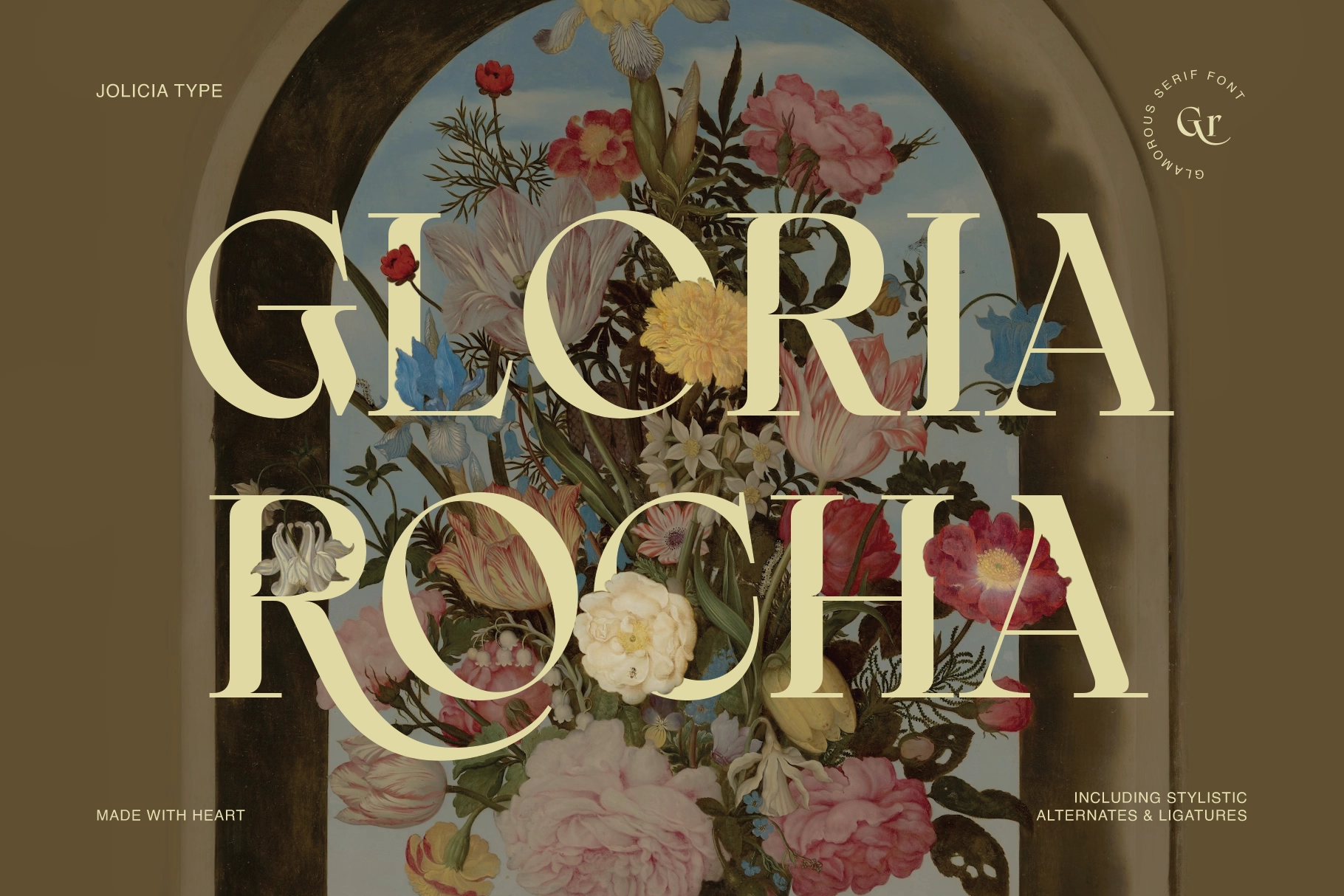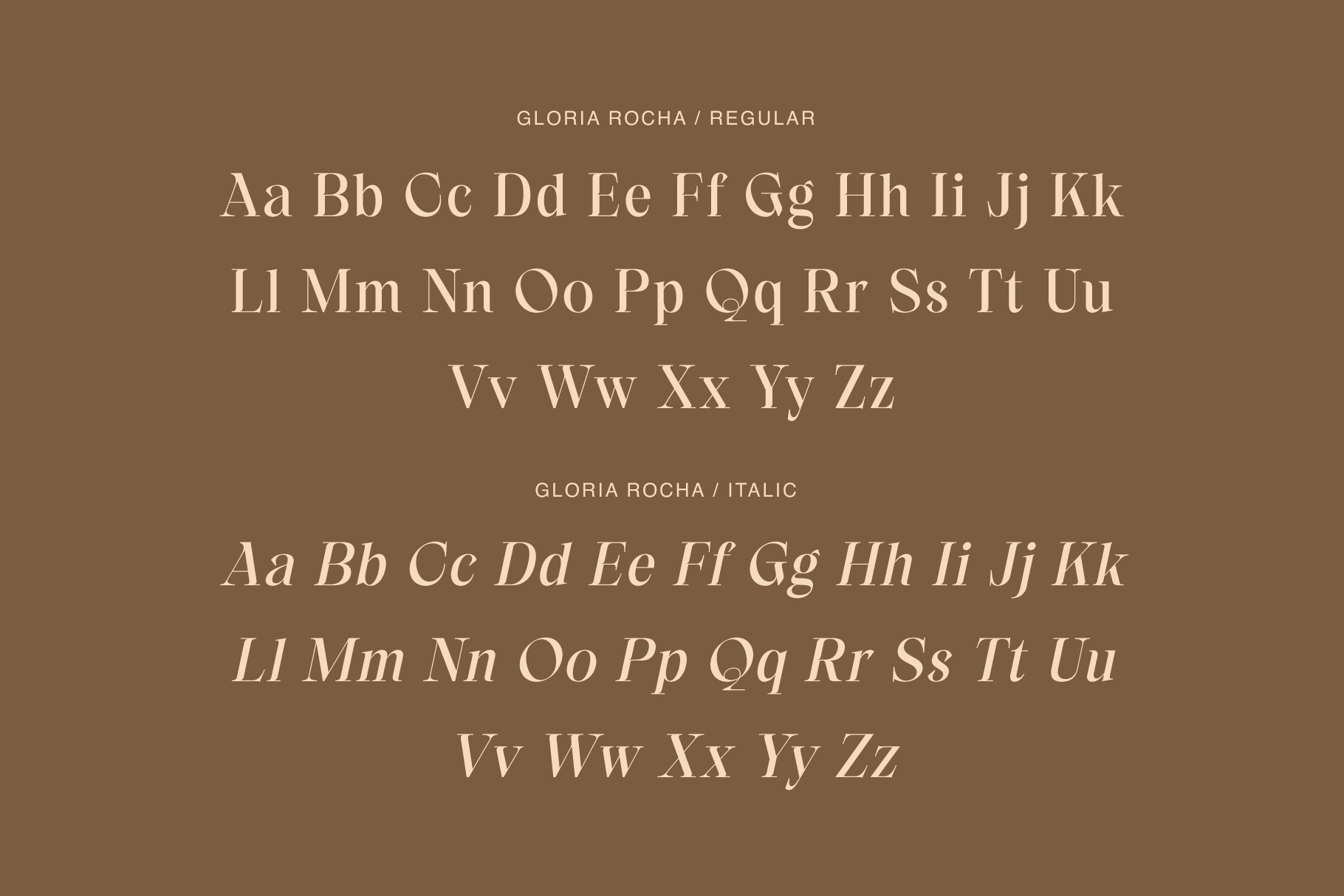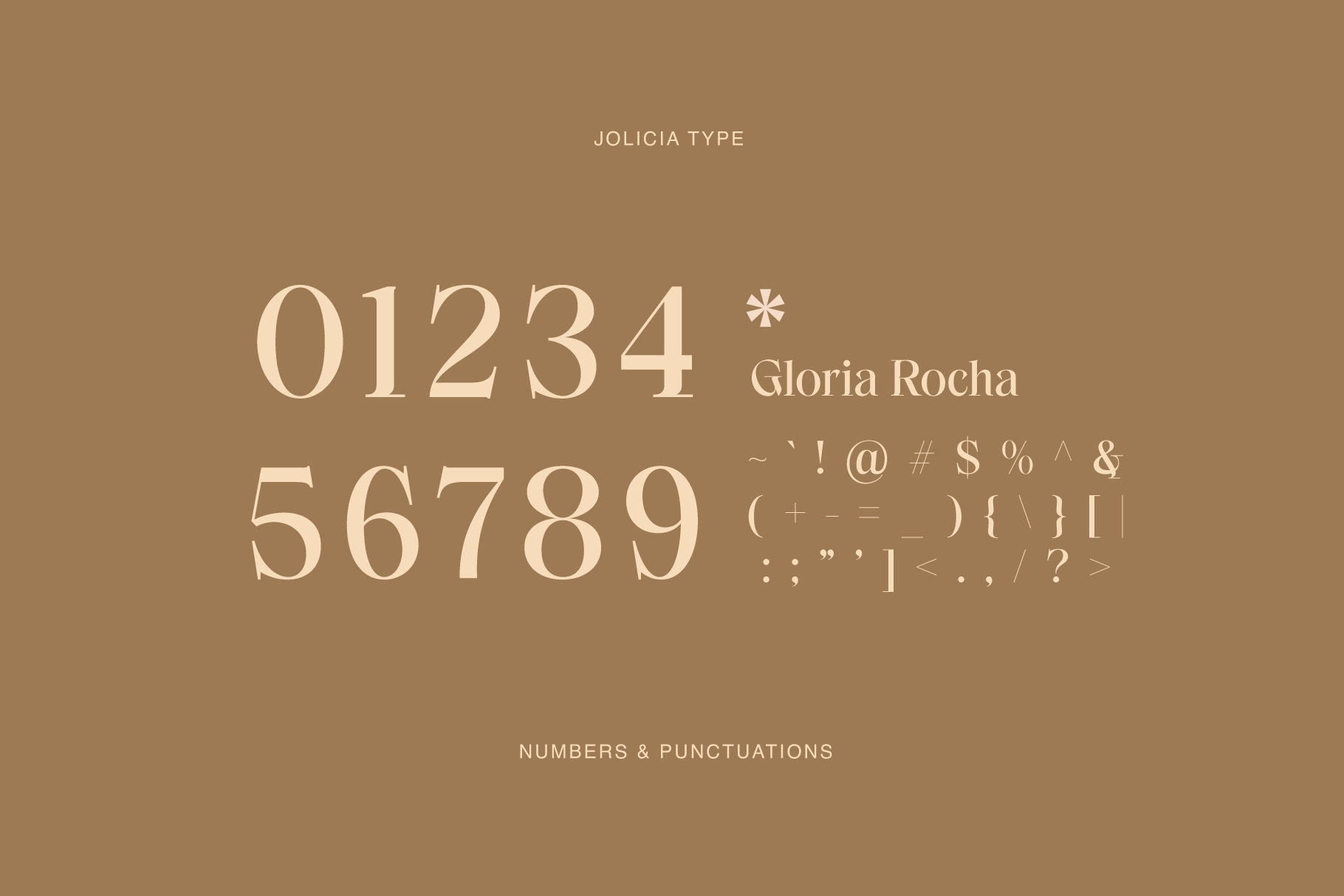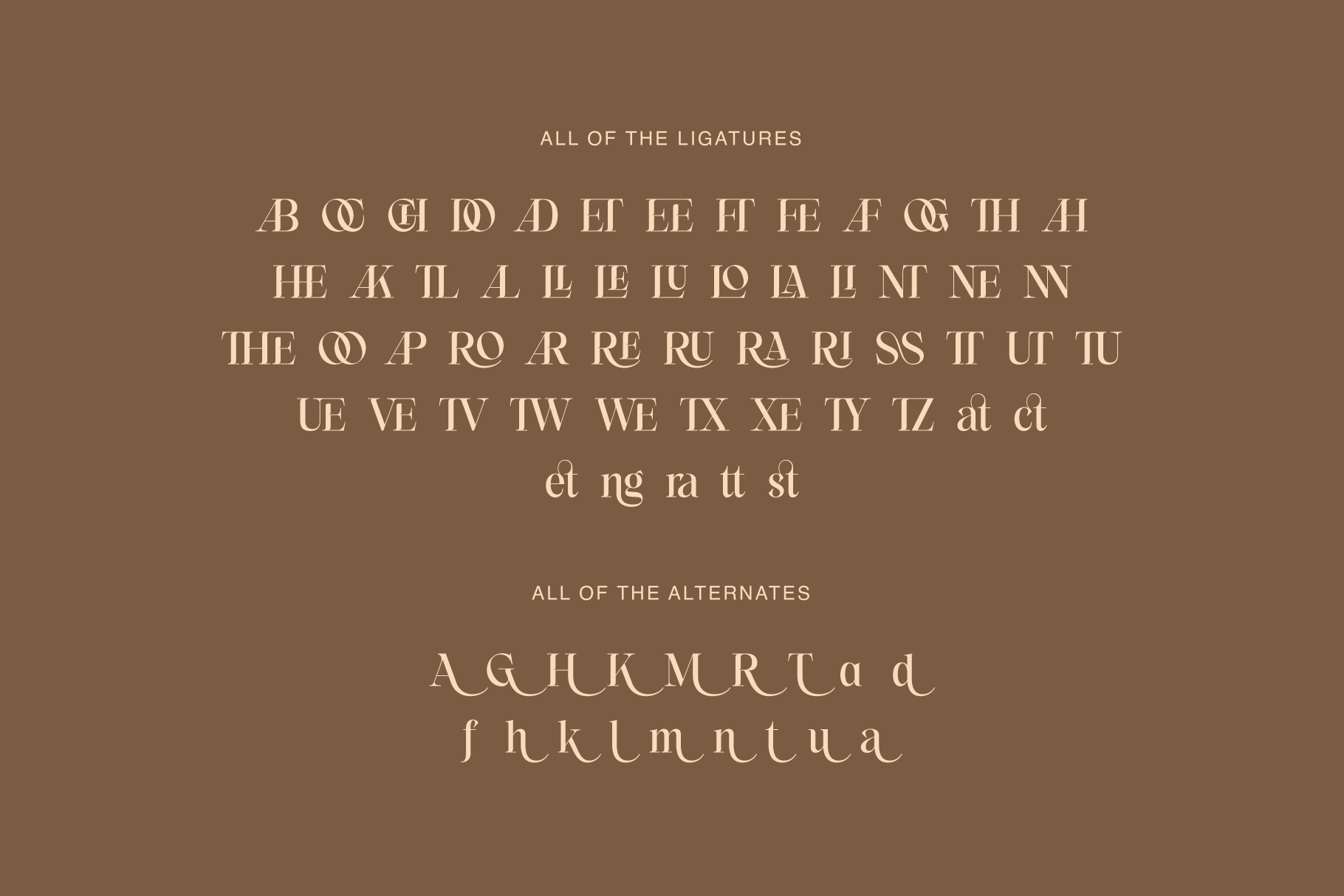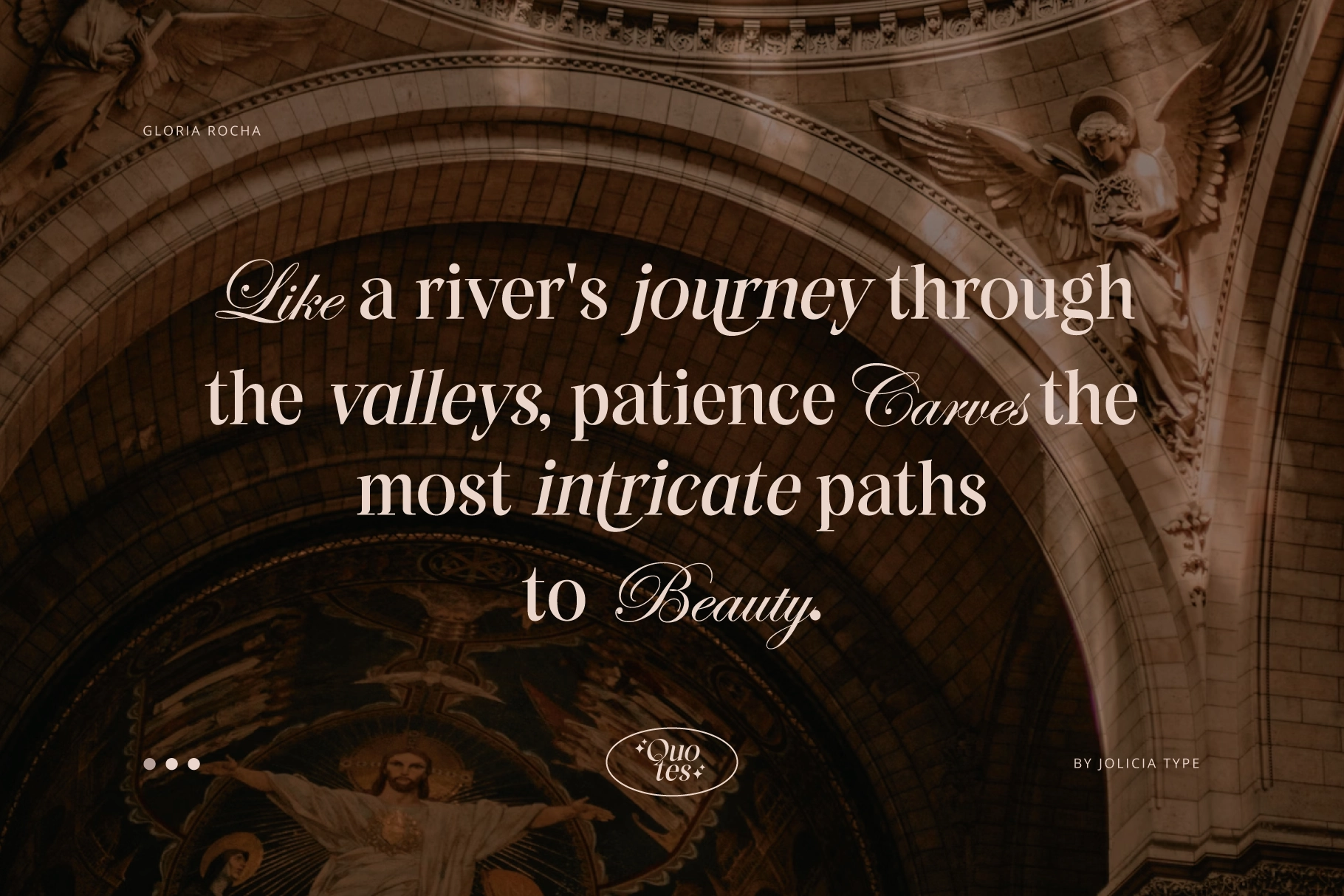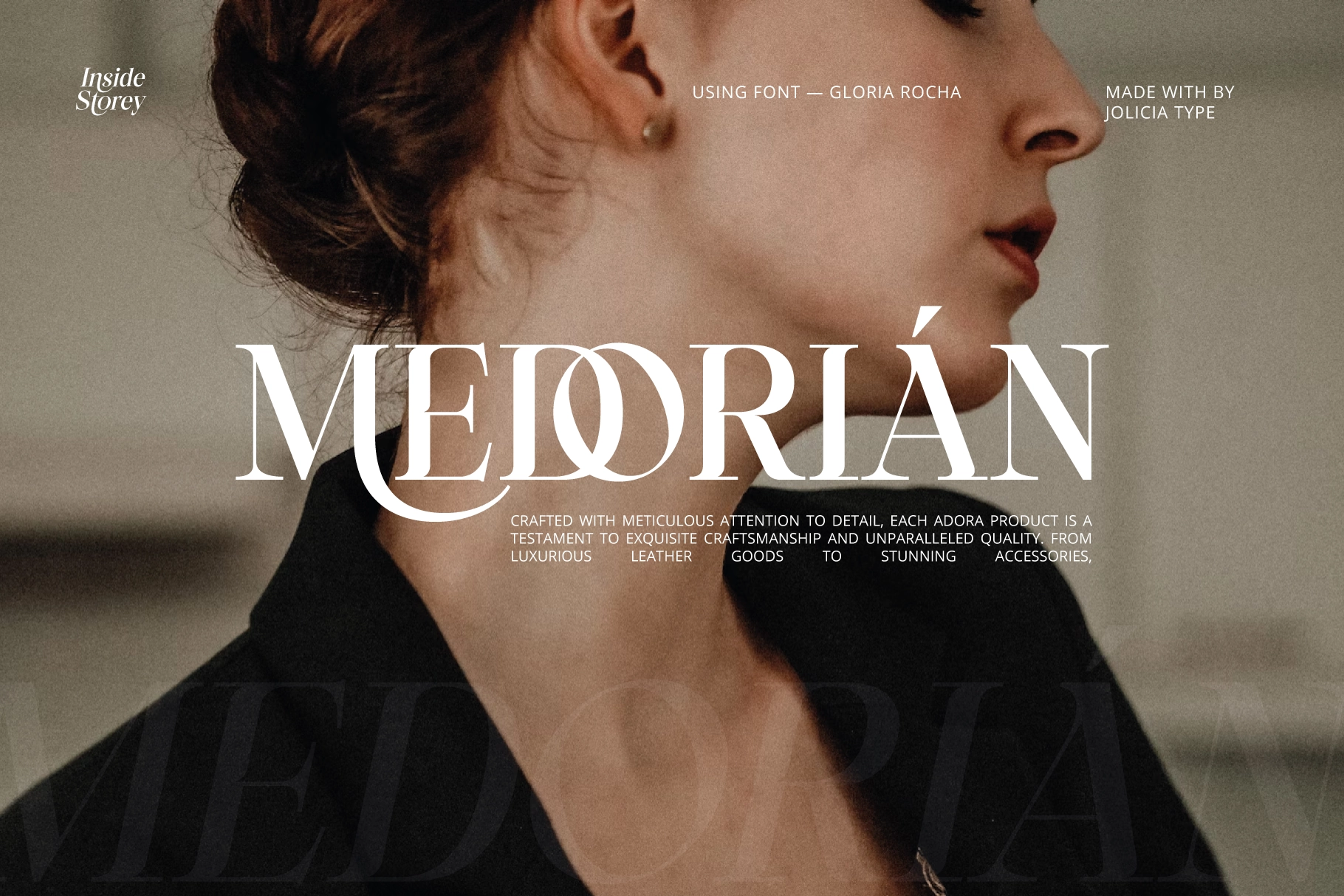
Gloria Rocha - Elegant Glamour Serif Font
Gloria Rocha is an elegant serif font with the proportions and stroke contrast of mid-century fashion typography — tall x-height, high contrast between thick and thin strokes, and serifs that taper to a fine point without losing weight at the join. The italic leans into the same register: it reads as a calligraphic companion to the Roman rather than a mechanical slant, with slightly more curve in the lowercase.
The ligature set is unusually rich — uppercase, lowercase, and mixed pairs — so the font rewards careful setting and opens up well for logotype and headline work. Use it for luxury brand identities, beauty and fashion editorials, wedding stationery, fragrance and cosmetics packaging, boutique hotel branding, book covers, and social content for premium labels.
- ligatures & stylistic alternates